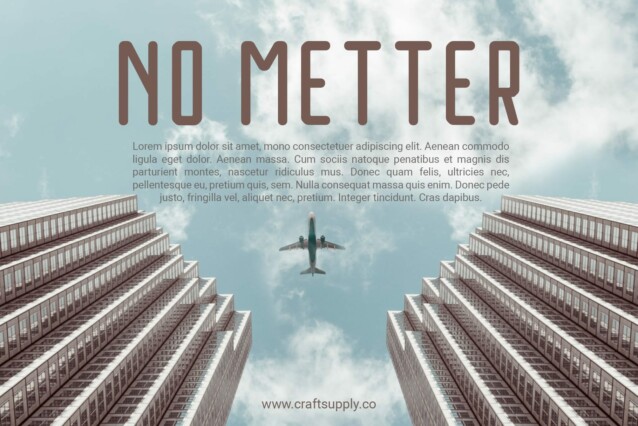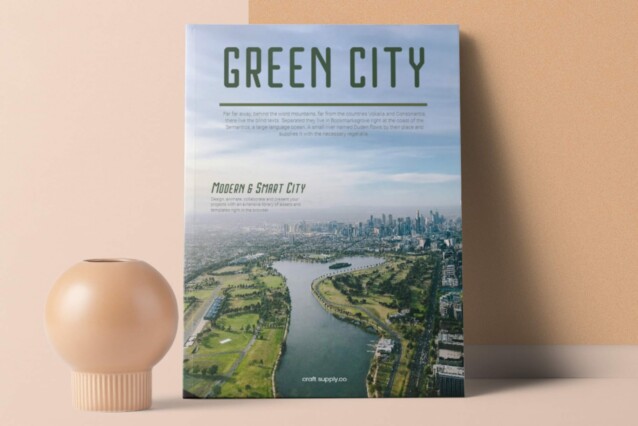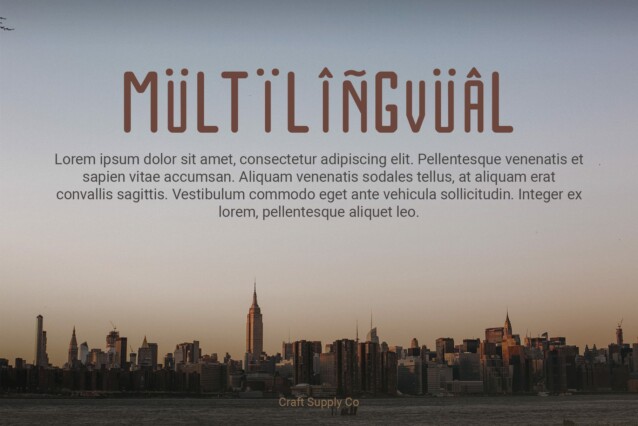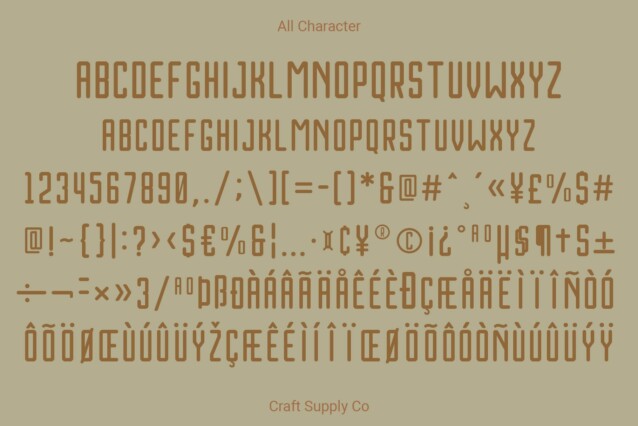
Houston Rounded Font
Houston Rounded Font: Embracing Simplicity. Minimalist Design Houston Rounded features a clean and simple sans serif design, characterized by its low-contrast strokes and rounded edges. Its minimalist aesthetic offers a contemporary appeal suitable for a wide range of design applications.
Smooth and Rounded With its rounded terminals and gentle curves, This font exudes a sense of warmth and approachability. The softness of its letterforms adds a touch of friendliness to any project, making it particularly well-suited for modern branding and digital interfaces.